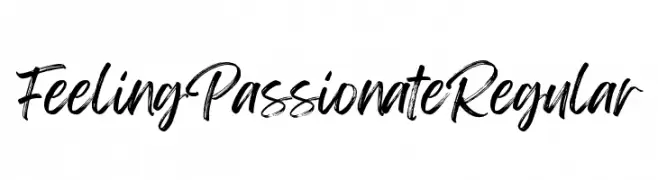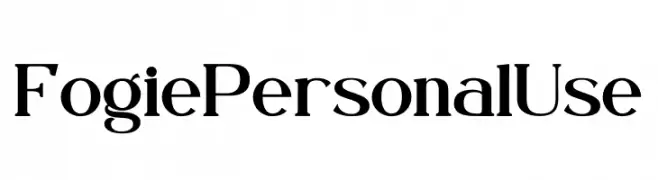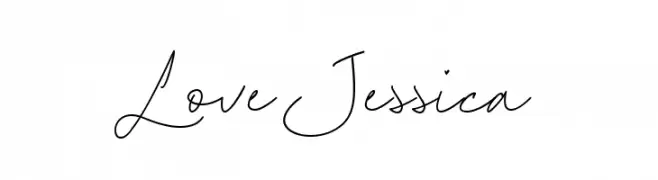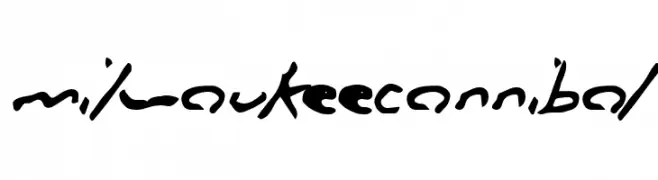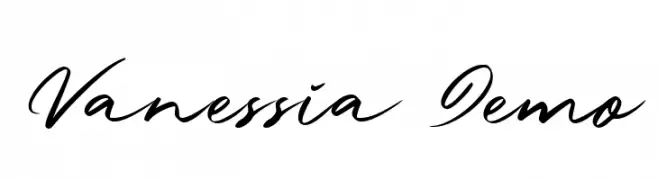
A classic serif font with elegant, sharp serifs and balanced stroke contrast.
A bold serif font with strong vertical lines and sharp serifs, offering a classic yet modern look.
A bold, brush-style font with dynamic, handwritten strokes.
A bold, expressive handwritten font with dynamic, irregular strokes.
A sophisticated script font with flowing, cursive strokes and elegant flourishes.
A classic serif font with elegant strokes and refined serifs, exuding timeless elegance.
A classic serif font with elegant serifs and medium contrast, ideal for traditional and formal uses.
A bold serif font with high contrast and classic appeal.
A clean, modern font with consistent stroke width and high readability.
A delicate, flowing script font with an elegant handwritten style.